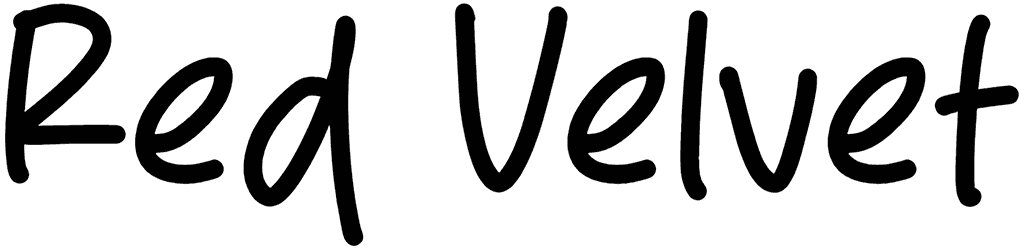
Red Velvet Font
There’s a freedom to the handwritten letters of Red Velvet that won’t let you get enough of it. So try not to miss this bullet journal font and its friendly approach in your future designs for kids, postcards, happy birthday cards, mugs, holiday posters, ice cream menus, and more.
Buckle up because you’re about to see how wonderful it is to include a warm tone in your lettering and make the audience feel comfortable with you with a summer font at hand.